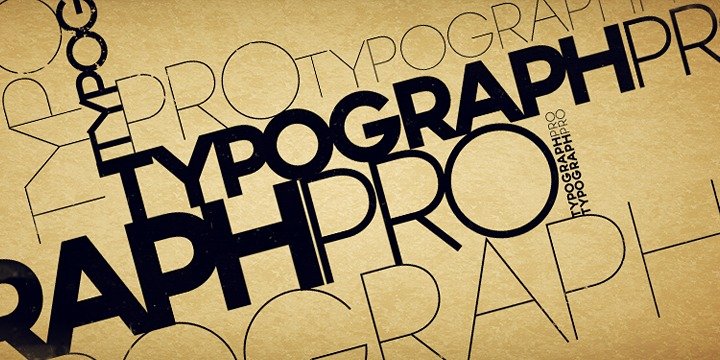
Typograph Pro Font
Typograph Pro is in a font’s name and does not mean OpenType, but it is a name that exists on its own without any features associated with it. The ‘Pro’ in the name of this font should not be interpreted as having OpenType features. It has none. What was the inspiration for designing the font? Inspired from the basic shapes like circle, cube and triangle.
Closer to basics means more useful in various projects. What are its main characteristics and features? Clean graphic shapes. Usage recommendations: Graphic design, Motion design, 3D, Posters, Magazine covers, Outdoor.
Typograph Pro Sans Serif Font